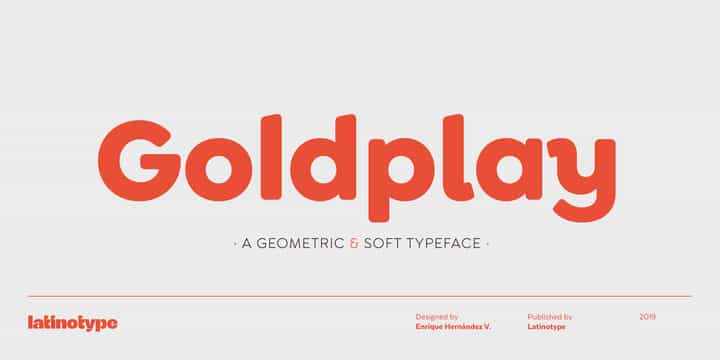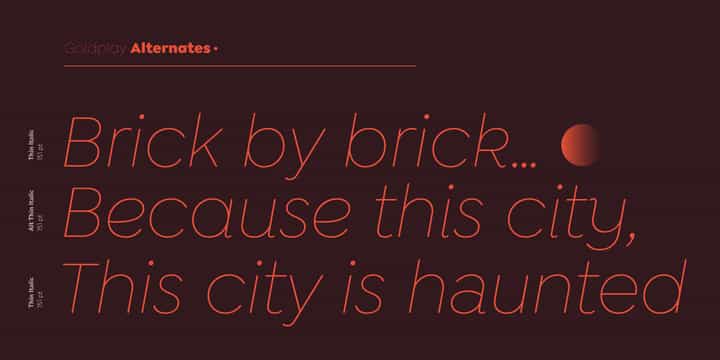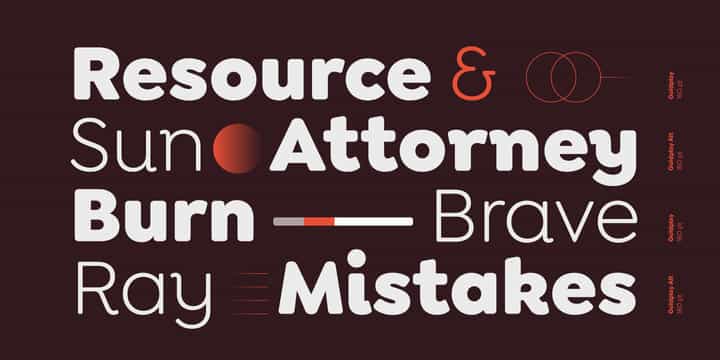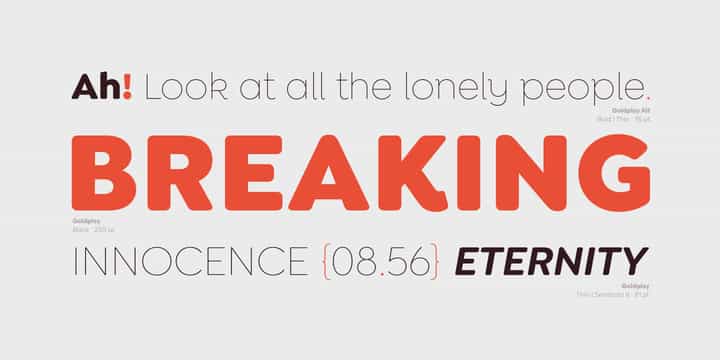
Goldplay Sans has gentle curves for terminals, an interesting and cheerful look, and modern design that is still classic in terms of dimensions and appearance. Ideal for headlines branding logotypes publications books motion graphics television and web usage. Of all the fonts used in Goldplay, it is characterized by a high x-height that makes it look rather classy.